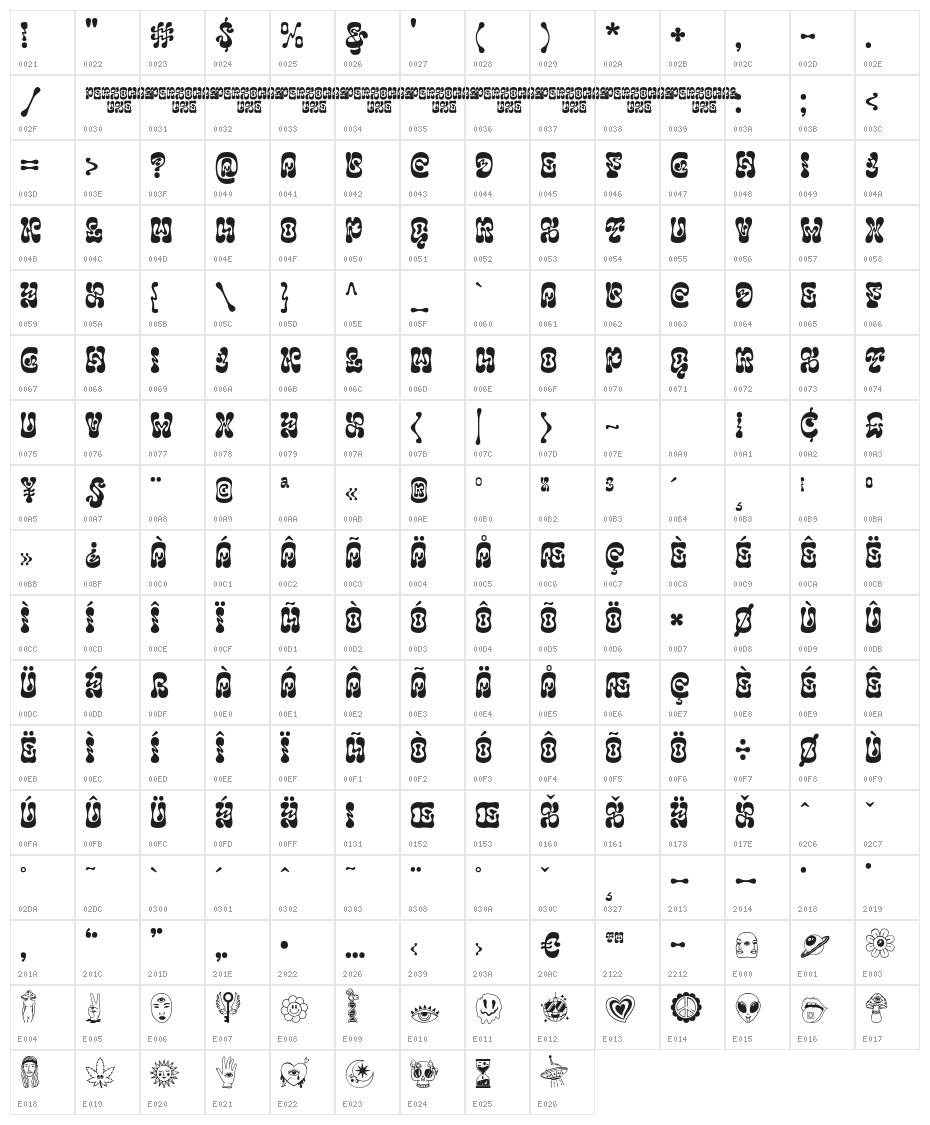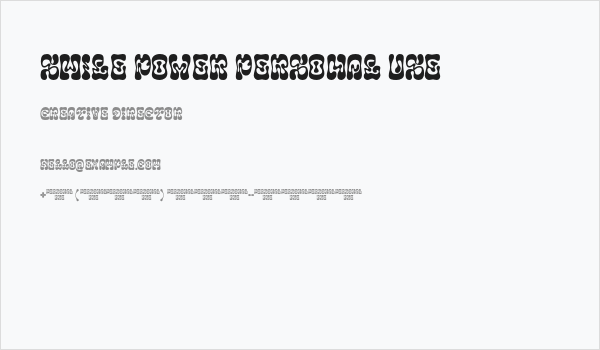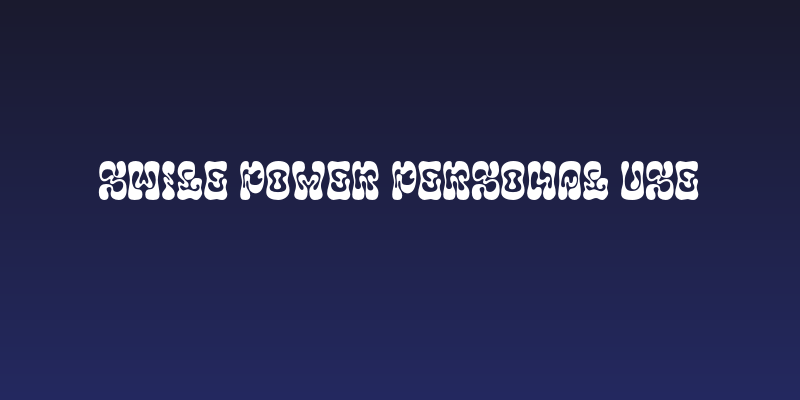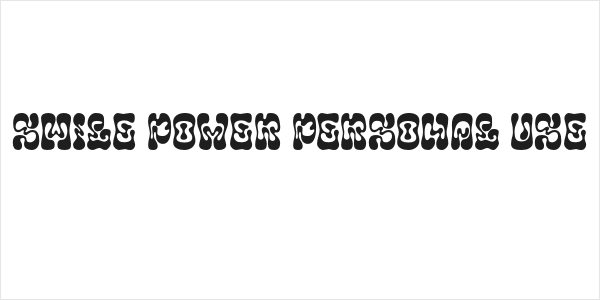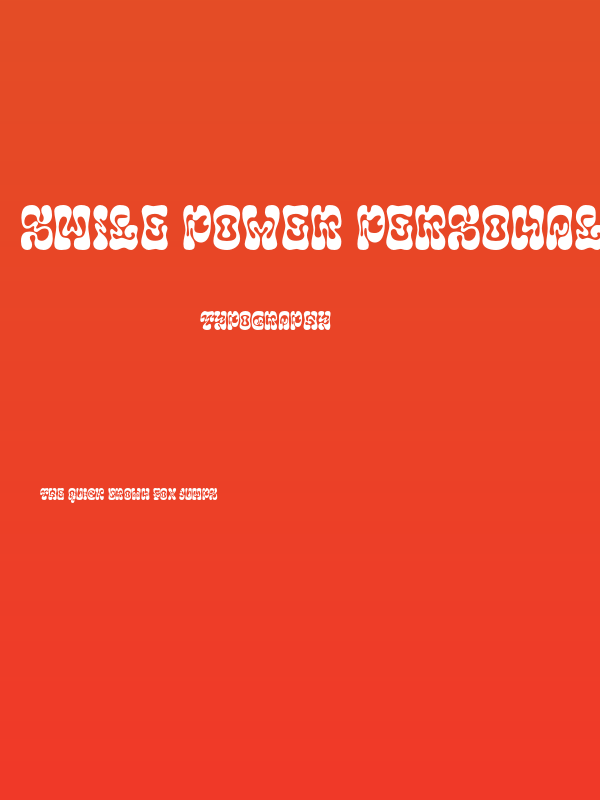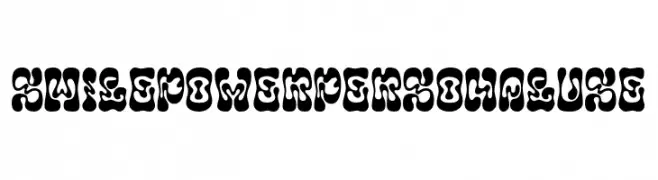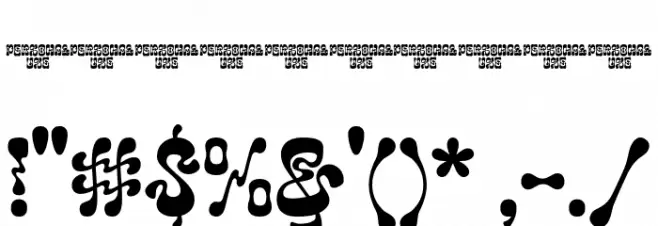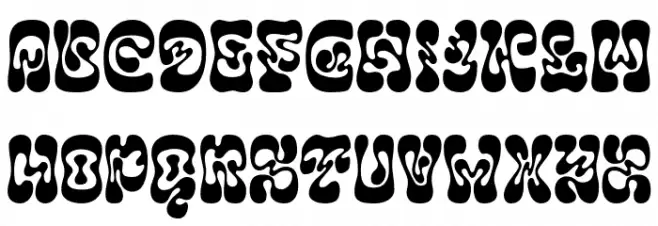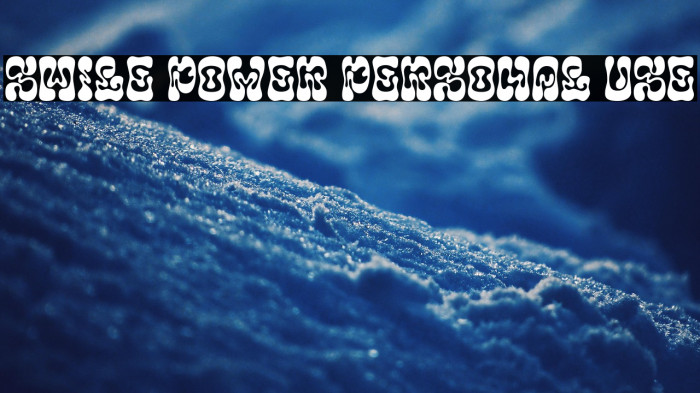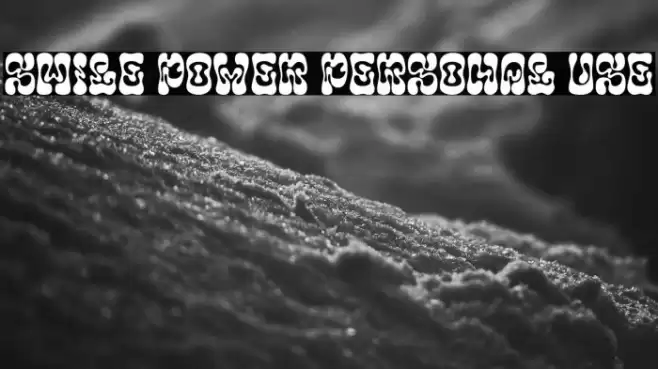
Smile Power Personal Use Font
| Anwendungsfall | Logos, Headlines, Posters |
| Vorgeschlagene Projekte | Ideal for posters, party invitations, creative branding, and any project needing a fun, engaging visual impact. |